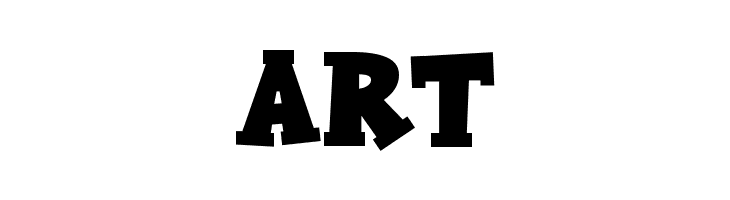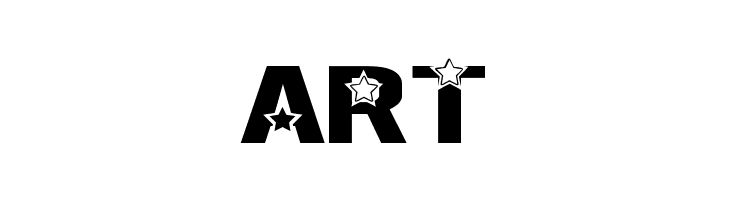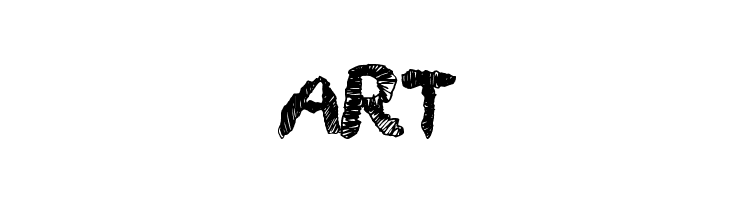
A decorative font with a mosaic-like texture and elegant serif forms.
A bold, playful font with thick strokes and a cartoonish style.
A bold, decorative font with star motifs integrated into each character.
A bold, fluid font with a rock-inspired, dynamic style.
A bold, playful handwritten font with energetic strokes and a lively appearance.
A bold, hand-drawn font with a textured, sketched appearance.
Handwritten cursive script font.
A bold, playful font with a bubbly, cartoon-like appearance.